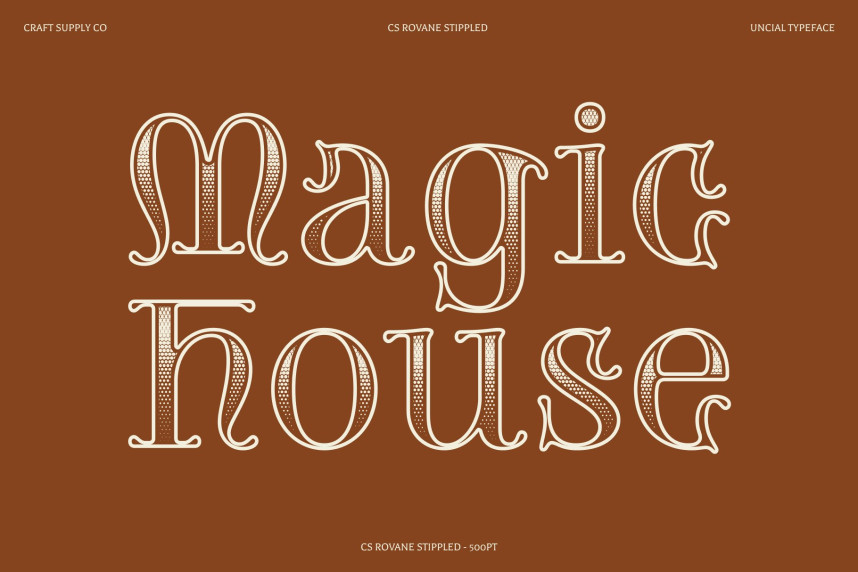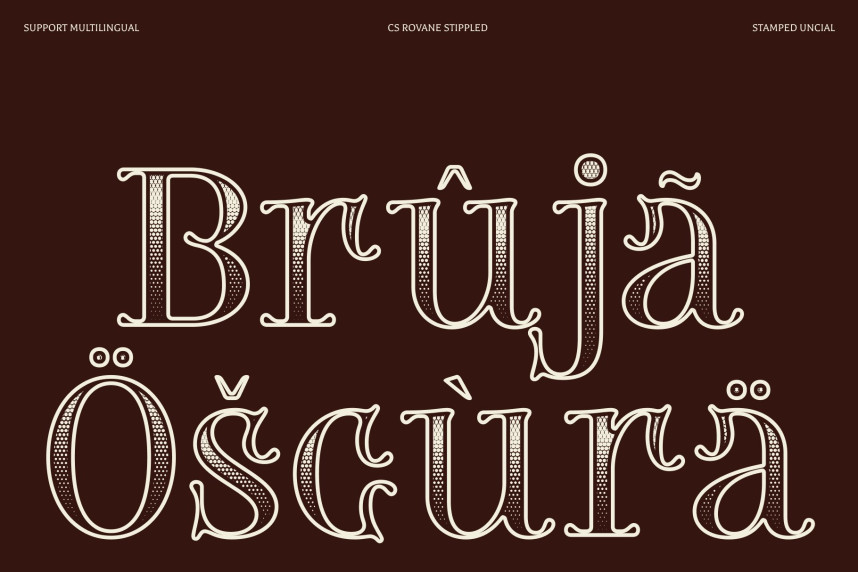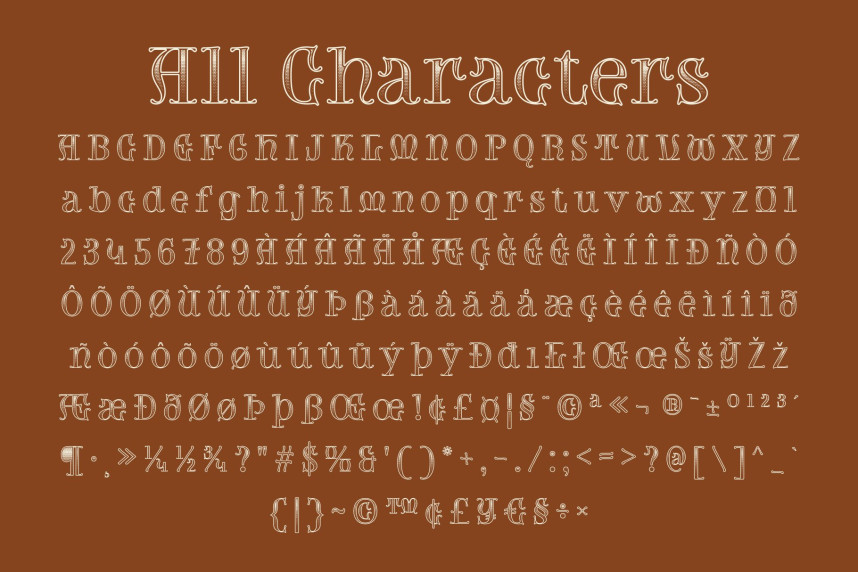
CS Rovane Stippled Font
CS Rovane Stippled Font – Uncial Font with Medieval Charm
A Timeless Display Typeface with Classical Roots
This is a display font inspired by the uncial script, known for its rounded, flowing letterforms and historic elegance. Drawing from the artistry of medieval calligraphy, the font captures the beauty of ancient handwritten manuscripts while introducing a subtle stippled texture that adds depth and a handcrafted, vintage print feel.